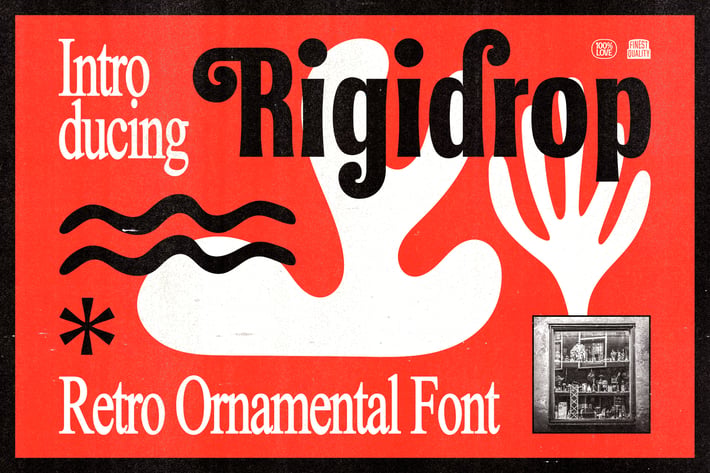
Rigidrop - Retro Ornamental Fonts
konstantinestudio
Rigidrop is a vintage signage-inspired font. It is implemented in a digital exploration to cover bigger visual possibilities.
Perfectly fit for a logo, branding, signage, decor, books, cover, badges and emblems, clothing, apparel, merchandise, movie title, serials, and many more.